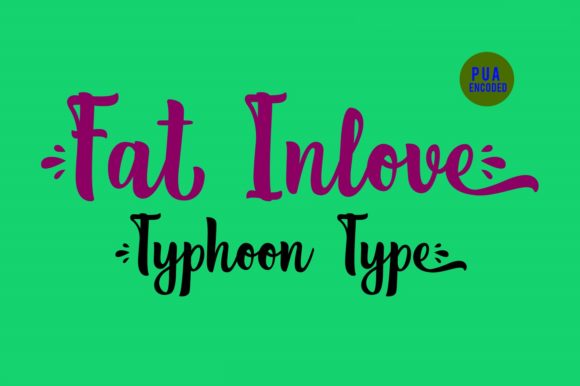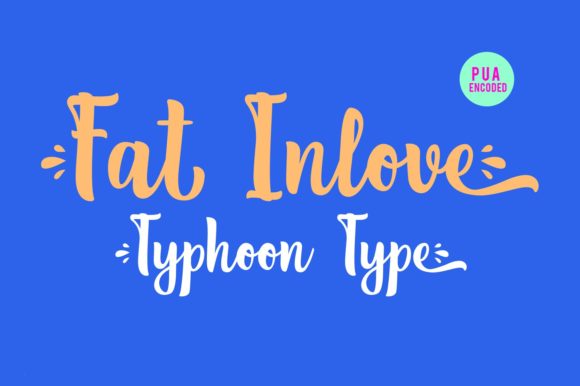
Enter the Fat Inlove Font, a stunning cursive script that’s been crafted to add a stylish touch to your headlines and logotype projects. With its strong, confident, and dynamic feel, this font is the perfect way to give your designs a nostalgic character that’s sure to capture attention. Whether you’re working on a branding project or a typography-driven campaign, the Fat Inlove Font is a valuable addition to any designer’s toolkit.
Fat Inlove Font Key Features
- Font Style: Script Font with a playful, cursive feel
- Unique Characteristics: Includes ligatures, swashes, and alternate characters for added flair and personality
Fat Inlove Font Review
I recently had the chance to work with the Fat Inlove Font, and I must say, it’s a unique and attention-grabbing choice. ✨ Here are some of the things that stood out to me:
- **Custom feel**: The Fat Inlove Font has a distinctive, handmade look that can add a touch of personality to any design.
- **Expressive curves**: The font’s flowing curves can be used to create a sense of energy and movement.
- **Good for headlines**: The font’s bold, chunky look makes it well-suited for headlines and titles.
However, as with any font, there are some limitations to consider: ⚠️
- **Limited legibility**: The font’s chunky look can make it difficult to read in smaller sizes or when used for large blocks of text.
- **Not suitable for body text**: Due to its bold, attention-grabbing nature, the Fat Inlove Font is best used sparingly and not for large amounts of body text.
Overall, I think the Fat Inlove Font is a great choice for designers looking to add a touch of whimsy and personality to their designs. Just be sure to use it judiciously and in the right context.
Use the Fat Inlove Font for:
- Food and drink branding.
- Handwritten-style labels and signs.
For optimal results, use the Fat Inlove Font in bold and large sizes to emphasize text and add visual interest.
Exploring Creative Projects with Fat Inlove Font
Project 1: Whimsical Quote Art
Create a visually appealing quote art piece using the Fat Inlove Font. This font’s playful and romantic feel is perfect for expressing love and positivity.
What is the recommended font size for using Fat Inlove Font?
The recommended font size for using Fat Inlove Font is between 12pt and 24pt. This font size range allows for optimal readability and legibility. However, feel free to experiment with different font sizes to achieve the desired visual effect for your design project.